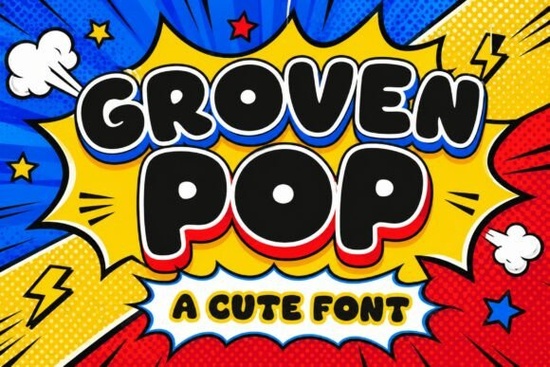
Designers, crafters, and small business owners often look for fonts that bring energy and personality to their projects. {title} is a versatile display font that stands out with its bold, playful style. Inspired by classic comic books and pop art, it adds a cheerful vibe to any design. Whether you're working on t-shirts, posters, or social media graphics, this font can help make your work more engaging.
The Grooven Pop Font features thick outlines and bubble-like shapes that give it a unique, eye-catching appearance. Its friendly and energetic look makes it ideal for children’s products, stickers, and branding materials. The font is easy to read while still maintaining a strong visual impact, making it a great choice for headlines and other prominent text elements.
One of the key advantages of {title} is its flexibility. It works well in both digital and print formats, making it suitable for a wide range of projects. Whether you're designing a YouTube thumbnail or creating packaging for a product, this font can add a touch of creativity and personality.
Using Grooven Pop in your designs can help set your work apart from the competition. Its bold and lively style is perfect for projects that need to grab attention. You can use it for logos, banners, or even as a decorative element in larger compositions.
When choosing a font, it's important to consider how it will look in different sizes and contexts. {title} maintains its clarity and charm at various scales, which makes it a reliable option for both large and small designs. This consistency helps ensure that your message is communicated effectively, no matter where it's displayed.
If you're new to using display fonts, starting with something like {title} can be a great way to experiment with different styles. It's easy to work with and can be paired with other fonts to create balanced and visually appealing layouts. Try combining it with a simpler sans-serif font for contrast, or use it on its own for a bold statement.
Remember to test the font in different scenarios before finalizing your design. This will help you see how it looks in real-world applications and ensure it meets your needs. With its friendly and dynamic style, {title} is a valuable addition to any designer's toolkit.